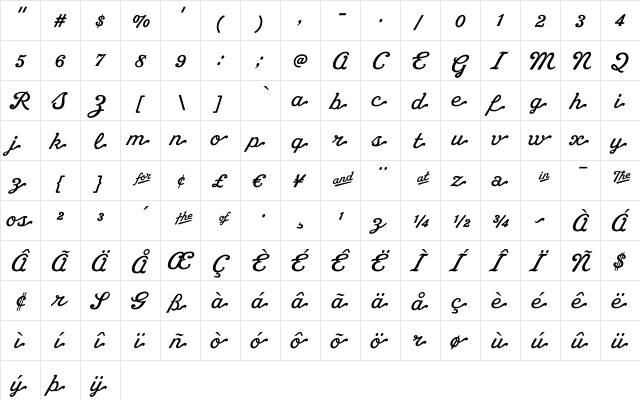
BeverlyShoresScriptSGA TT Regular
| Foundry | Spiece Graphics |
Design Context for BeverlyShoresScriptSGA TT Typeface
BeverlyShoresScriptSGA TT flows with the natural rhythm of handwritten lettering, making it ideal for designs that call for warmth and personal expression.